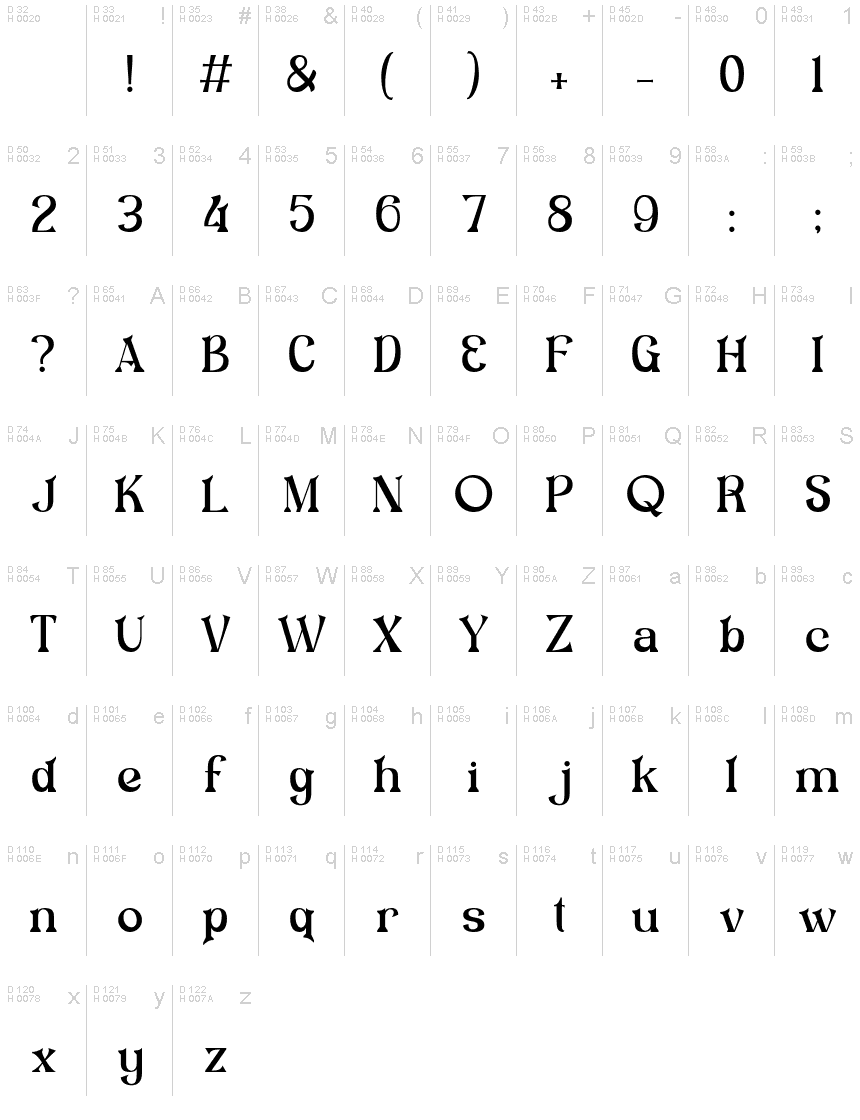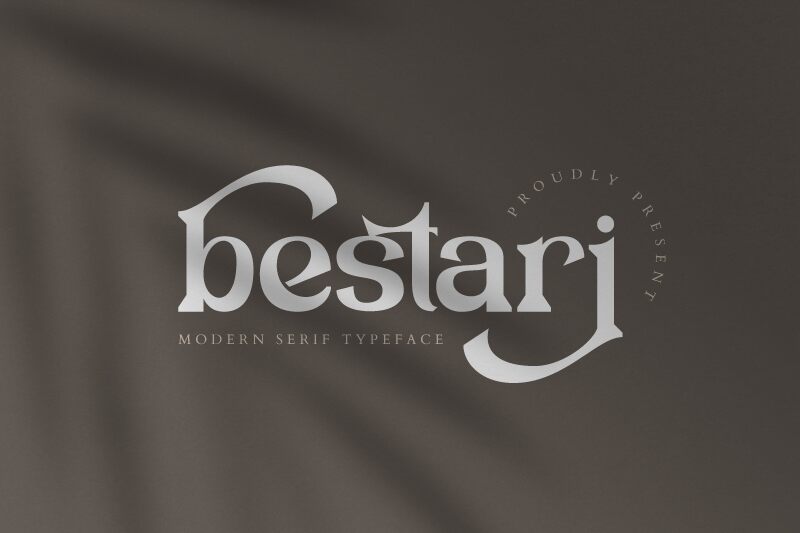
Bestari Regular
Bestari, designed by Rian Rahardi, is a bold serif font perfect for making a statement. From branding projects to creative posts, this font is the perfect choice to make your work stand out.